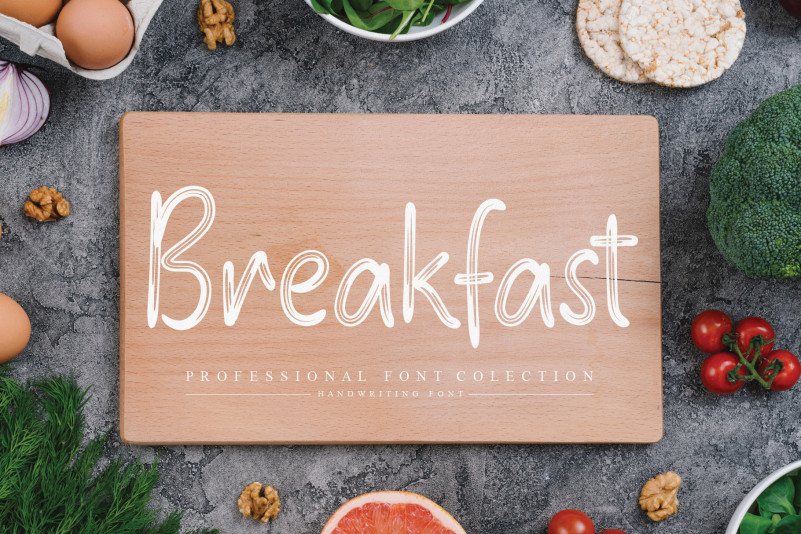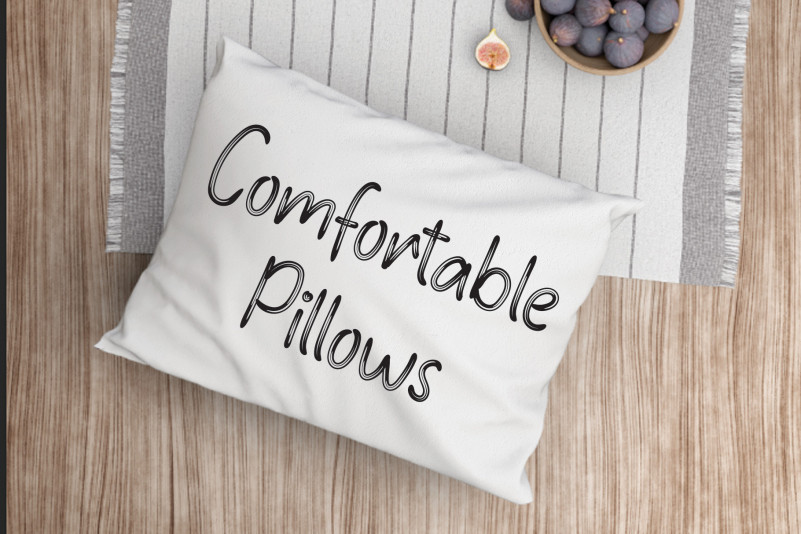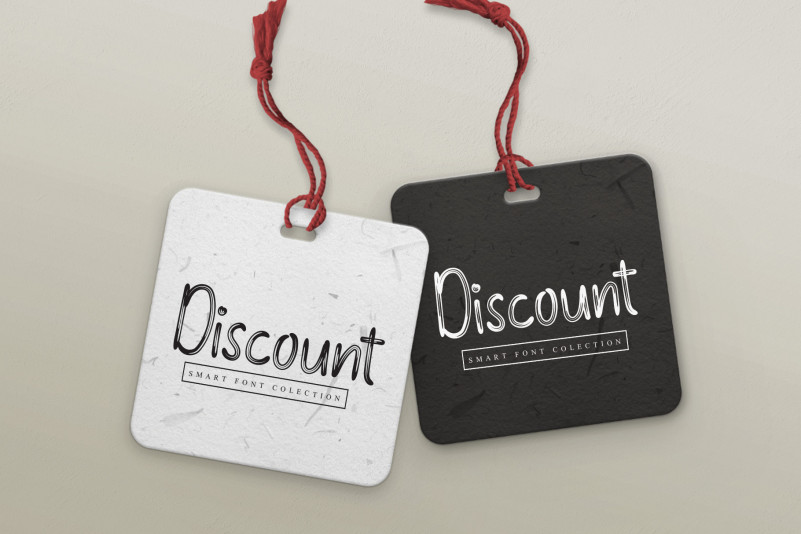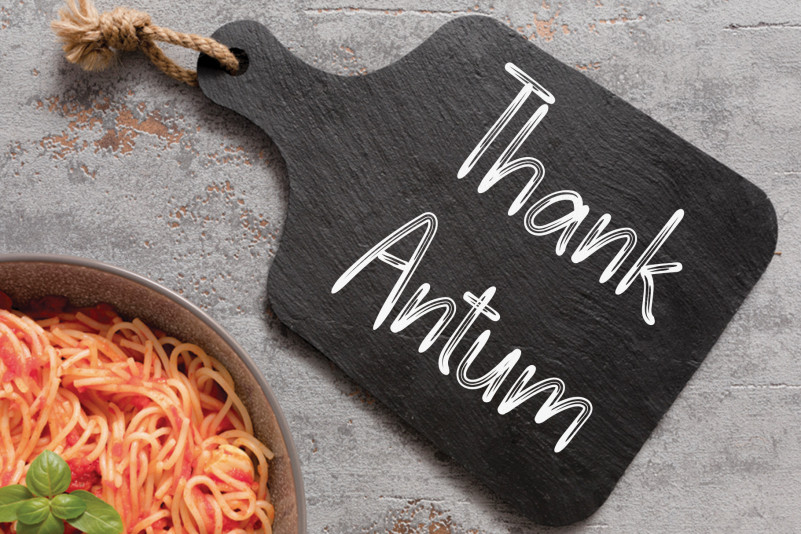
Christmas Holiday Brush Font
Christmas Holiday Brush Font is a sweet and friendly handwritten font. It looks stunning on holiday invitations, Christmas cards, quotes, greeting cards, logos, business cards and every other design which needs a handwritten touch.